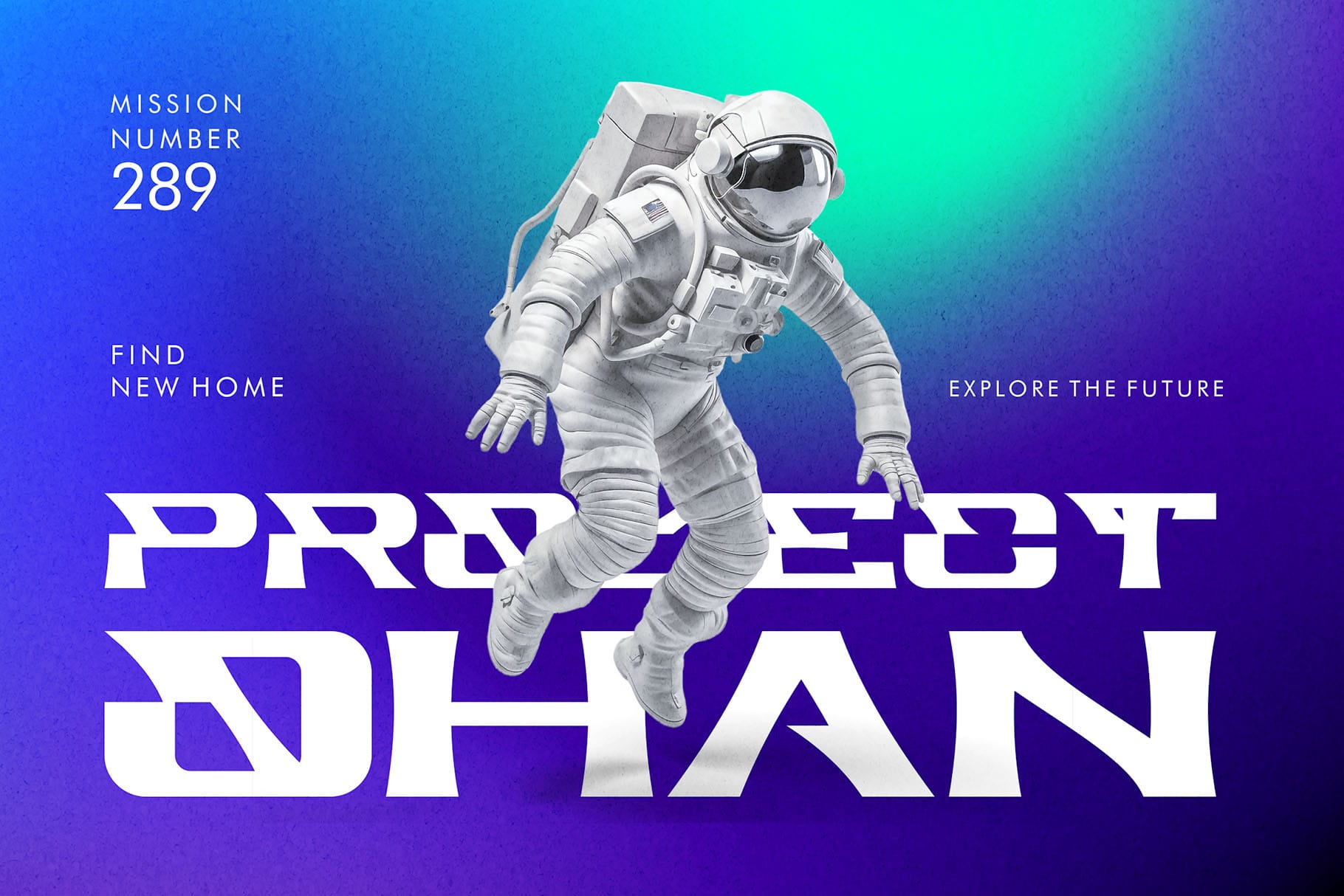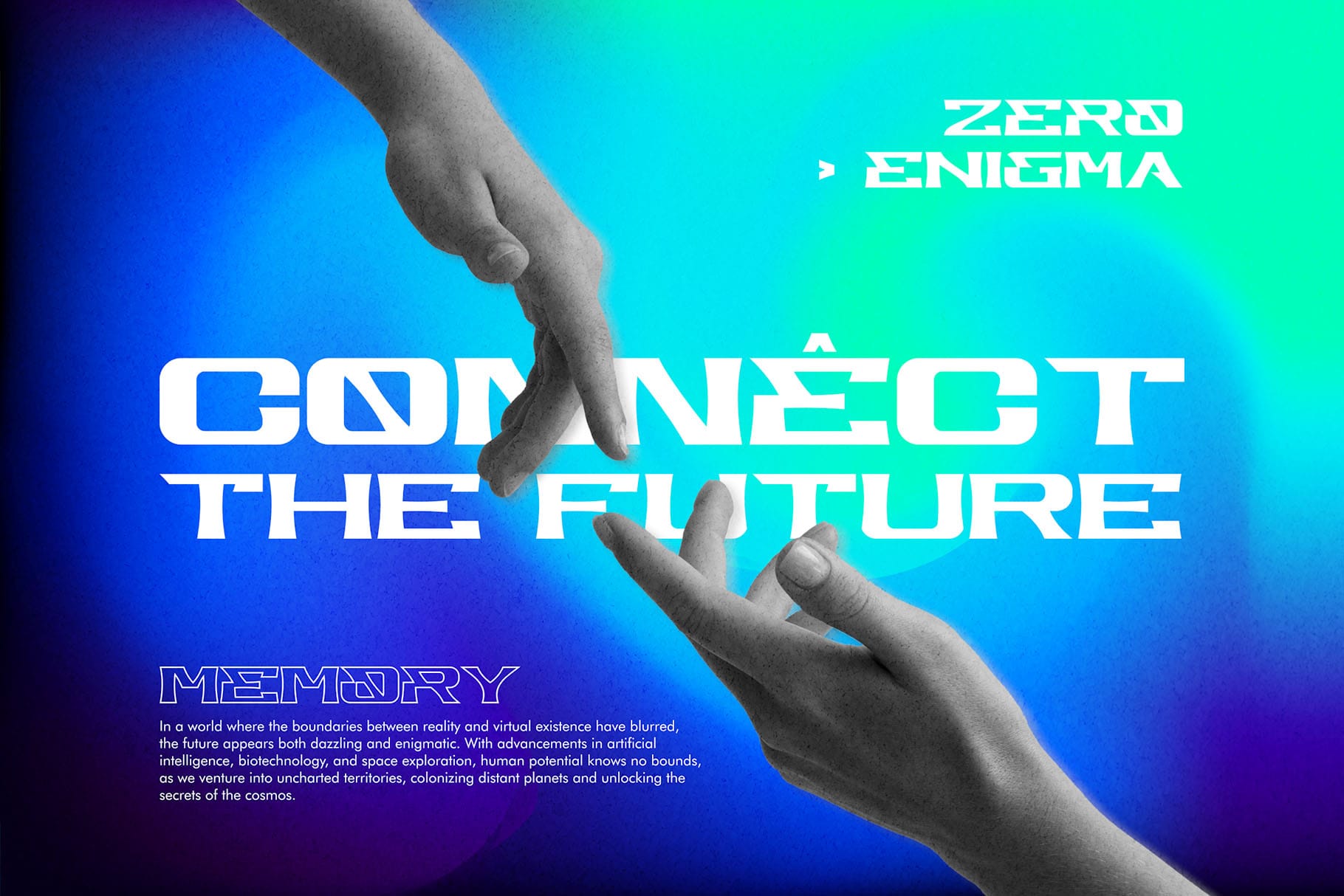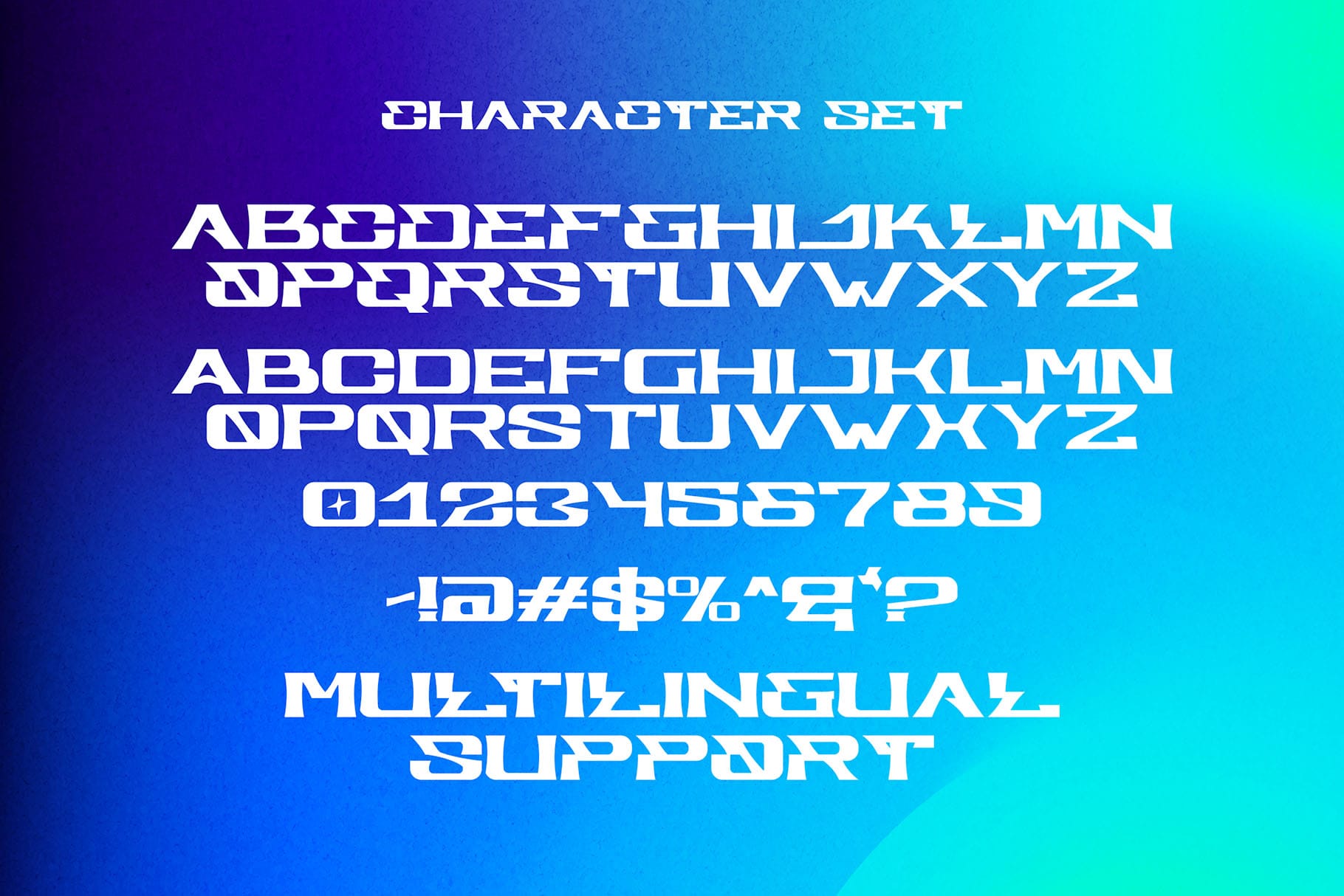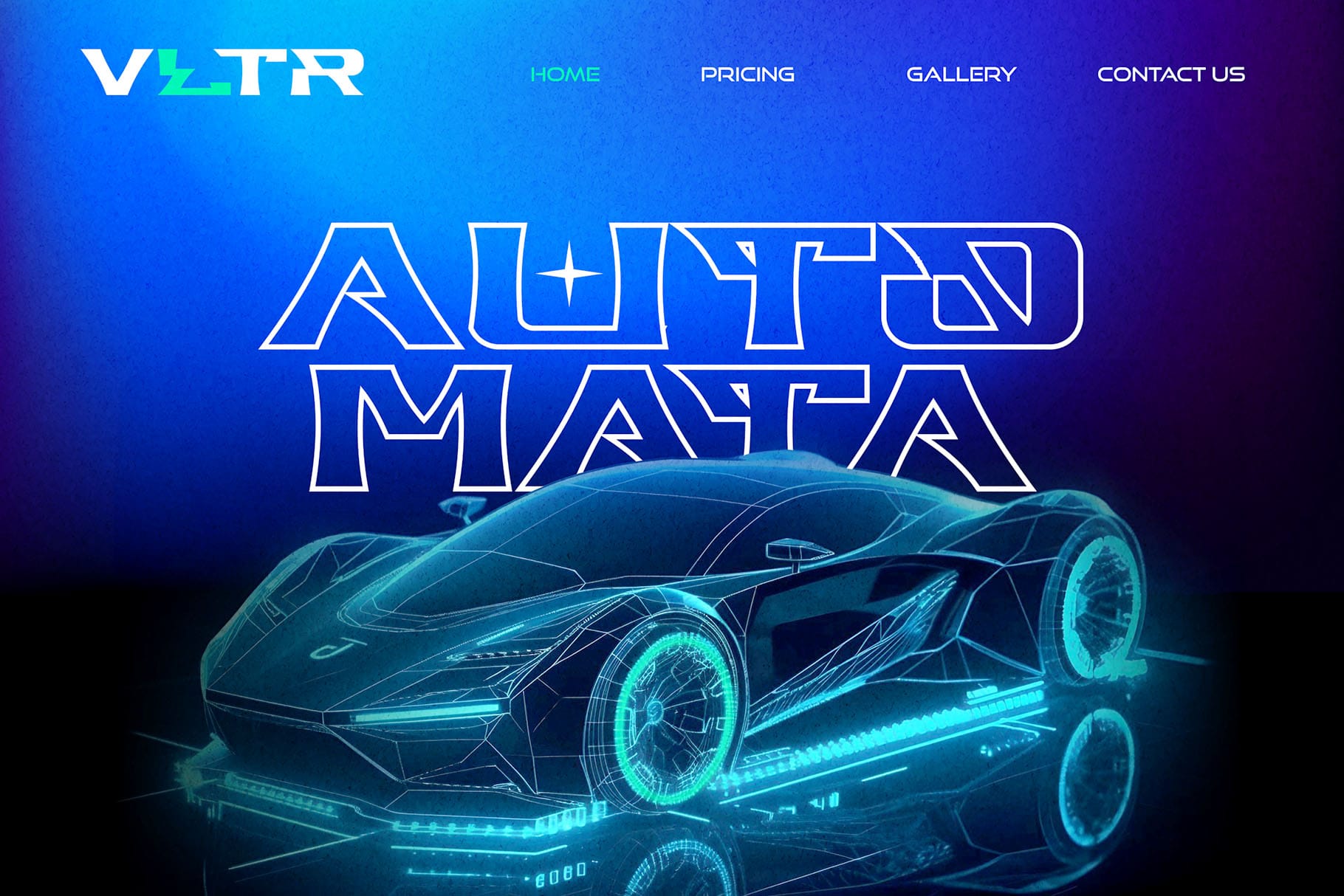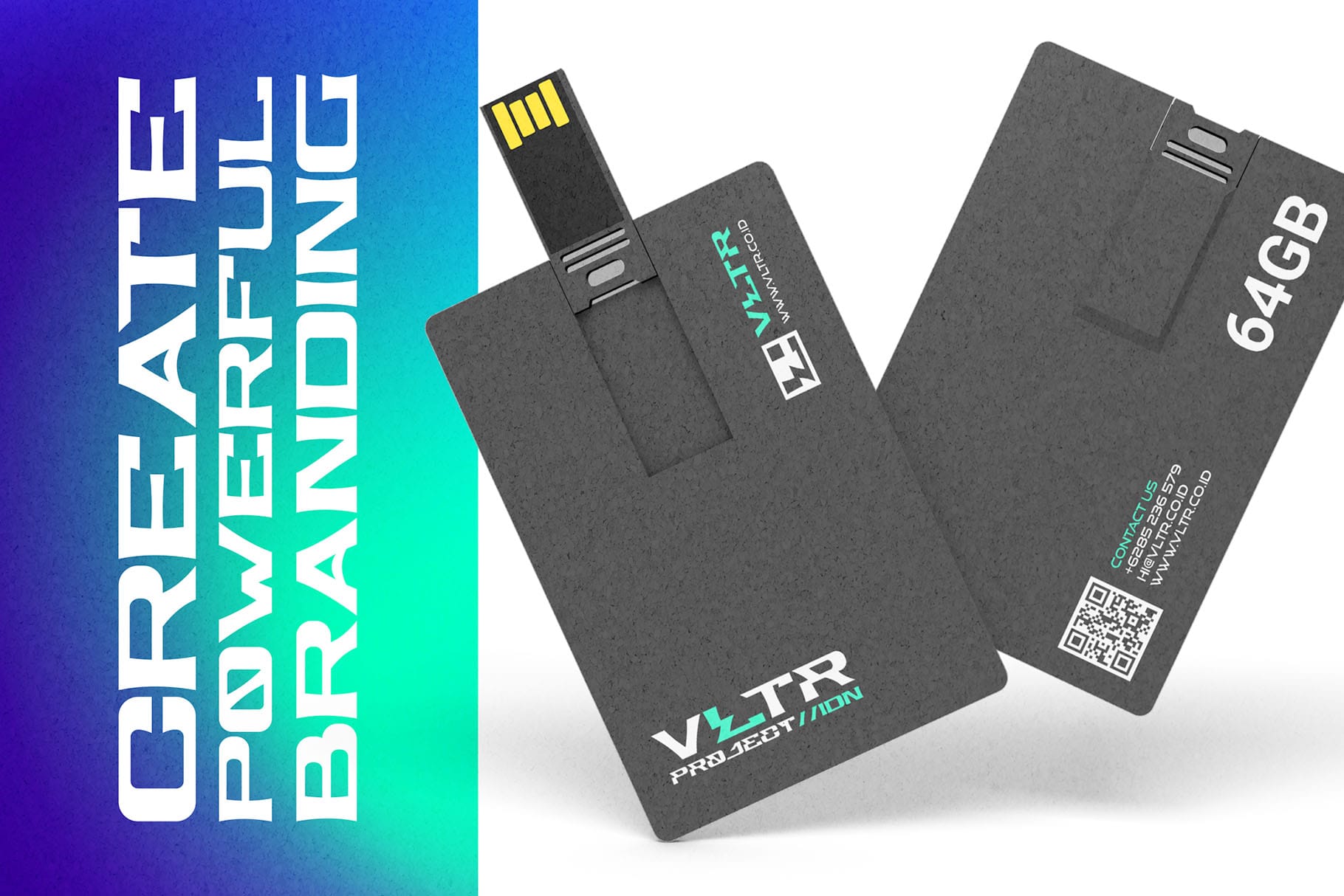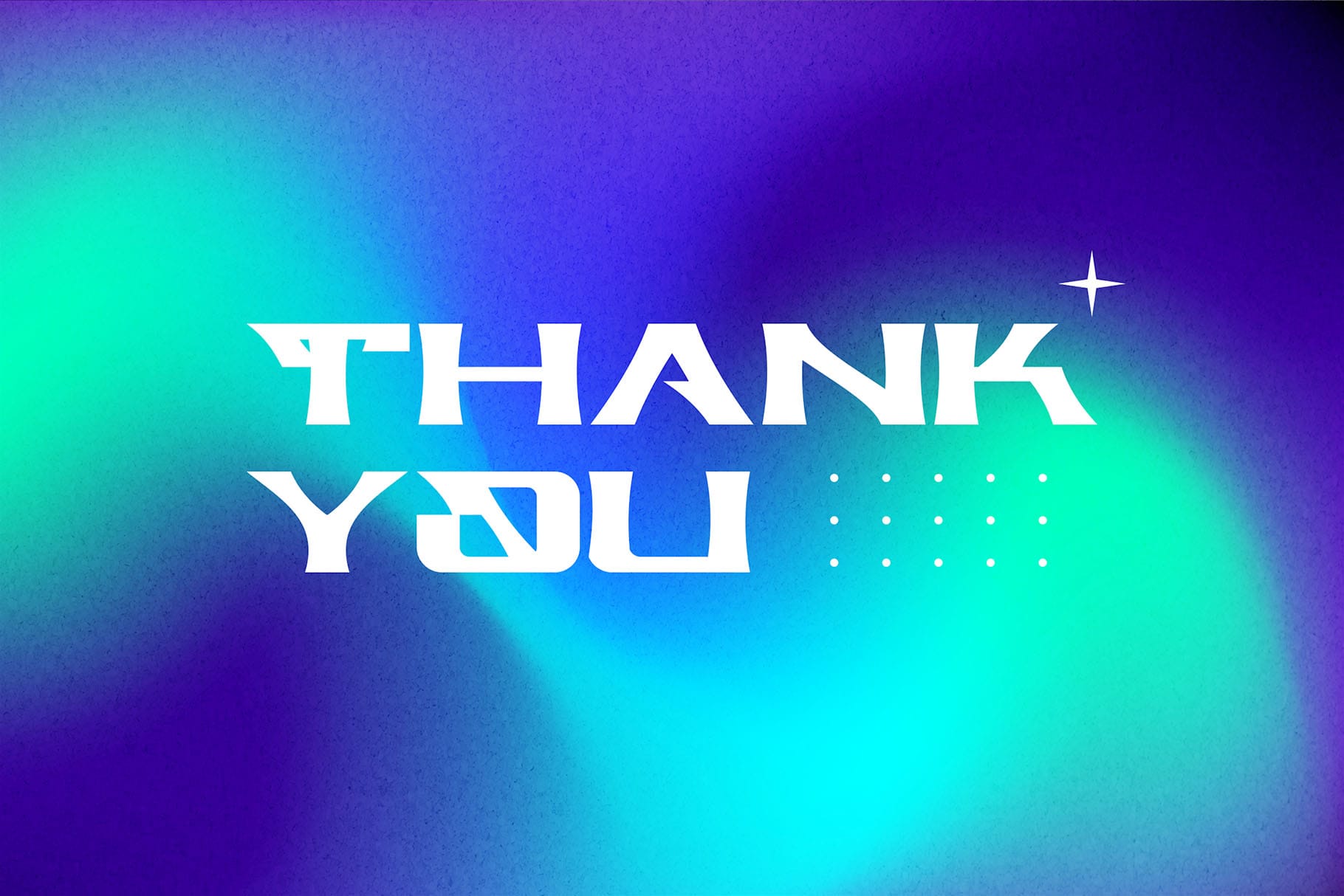
Meta Futura – Futuristic Display Font for Modern Design
Typography defines how a brand speaks to its audience, and when your project calls for power, clarity, and a future-ready vibe, nothing works better than a futuristic display font. Meta Futura – Futuristic Display Font is crafted for designers who need a strong, modern typeface with geometric precision. With bold letterforms and forward-looking details, this font is designed to energize logos, posters, advertising campaigns, and digital media with a high-tech aesthetic.
From startup branding to esports overlays, Meta Futura ensures that your design carries a futuristic edge while staying professional and versatile. This futuristic display font communicates innovation, progress, and strength with every character.
Futuristic Display Font with Bold Allcaps
Meta Futura is an allcaps futuristic display font with a commanding presence. Its extended geometric shapes and sleek proportions create a sense of progress and movement. The design draws inspiration from sci-fi elements and technology-driven aesthetics, making it the perfect choice for projects that demand bold statements.
Unlike generic fonts, Meta Futura is tailored for futuristic branding. Whether used in headlines, logos, or motion graphics, it maintains clarity and impact. As a futuristic display font, it pushes your project into tomorrow.
Key Features of Meta Futura – Futuristic Display Font
Professional designers choose Meta Futura for its style and usability. Here are the highlights:
- Allcaps Style: Strong uppercase design for impactful display usage
- Multilingual Support: Extended Latin coverage for international projects
- Futuristic Geometry: Bold, clean shapes with sci-fi inspiration
- High Readability: Optimized for large sizes and digital displays
- Versatility: Perfect for logos, esports branding, tech packaging, and posters
Why Designers Love Meta Futura
Designers love Meta Futura because it delivers everything a futuristic display font should: a unique personality, global usability, and professional structure.
Here’s why it’s a must-have font:
- Future-Ready Look: Perfect for tech brands, esports teams, and sci-fi inspired visuals
- Reliable in Branding: Its bold allcaps style ensures memorable logos and wordmarks
- Font Pairing Friendly: Works beautifully with brush or script fonts for creative balance
- Global Appeal: With multilingual support, it adapts to international design needs
Meta Futura for Logos and Branding
Logos are the foundation of any brand, and Meta Futura is built to make logos shine. As a futuristic display font, it brings authority and modern appeal to branding projects. Its strong geometry makes it an excellent choice for startups, esports organizations, and technology-driven companies.
Meta Futura for Posters and Headlines
Posters require instant attention, and Meta Futura guarantees visibility. As a futuristic display font, it thrives in large-scale use like event graphics, music promotions, and high-energy advertising. Its allcaps design ensures your message is bold and impossible to ignore.
Meta Futura is particularly effective in esports and gaming posters where futuristic aesthetics define the visual culture.
Meta Futura in Esports and Digital Media
Digital media moves fast, and you need typography that can keep up. Meta Futura is the perfect futuristic display font for esports overlays, Twitch banners, YouTube thumbnails, and streaming content.
When combined with brush fonts like Roadpunks, it creates dynamic contrasts—blending clean futuristic edges with organic human energy. Designers love this balance when creating gaming visuals that feel alive and powerful.
- Character Set: Allcaps, Numbers, Punctuation
- Category: Futuristic Display Font
- Best Uses: Logos, Posters, Esports, Tech Branding, Gaming